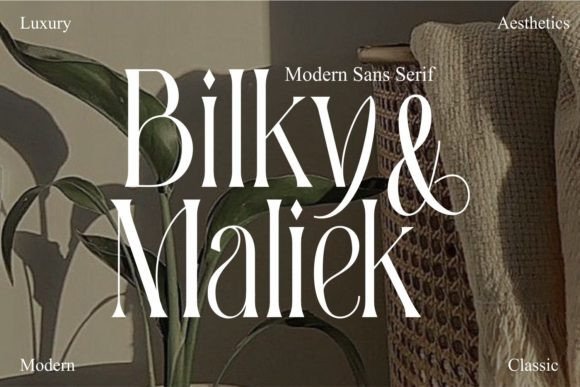
Prepare yourself to be captivated by the Bilky Maliek font, an exquisite sans serif masterpiece designed by the renowned Whymore. Experience the seamless fusion of elegance and class in every letterform, masterfully crafted to adorn your projects with a touch of sophistication.
With its delicately poised strokes, Bilky Maliek strikes the perfect balance between thin and thick, ensuring visual harmony and diversity. Each character exudes a refined charm, inviting you to explore a world of creative possibilities.
Are you planning to craft enchanting wedding invitations that leave a lasting impression? Look no further than Bilky Maliek. Its graceful curves and refined details will transform your words into a visual symphony, capturing the essence of love and commitment.
Let your imagination soar as you envision the endless applications for Bilky Maliek. Breathe life into your branding materials, elevate your social media presence, or create captivating designs that resonate with your target audience.
With its versatility and timeless appeal, Bilky Maliek is not just a font; it's a gateway to unlock your creative potential. Unleash the power of expression and elevate your designs to new heights.
Say goodbye to ordinary fonts and embrace the extraordinary with Bilky Maliek. Experience the joy of creating designs that captivate, inspire, and leave an unforgettable mark.